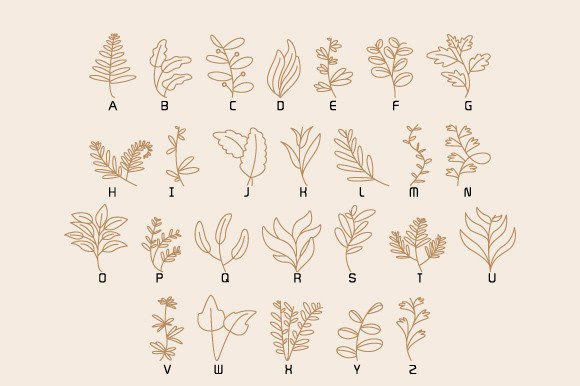
Introduction to Decor Leaves Font
Decor leaves is a dingbats font containing lovely leaves and branches.
Add some uniqueness to your creative projects with these delicate floral glyphs .
Why Choose Decor Leaves Font?
Decor Leaves Font offers exceptional quality and versatility, making it a valuable addition to your design toolkit. Whether you’re creating for personal projects or commercial use, Decor Leaves Font delivers professional results.